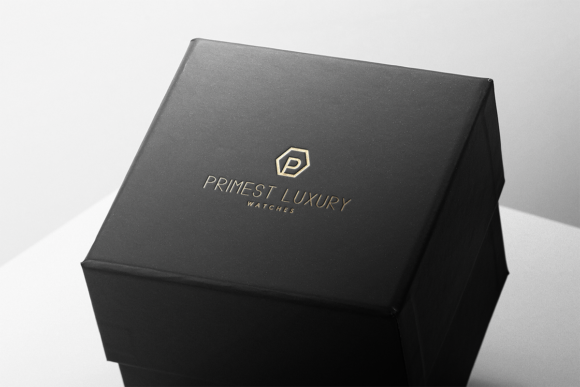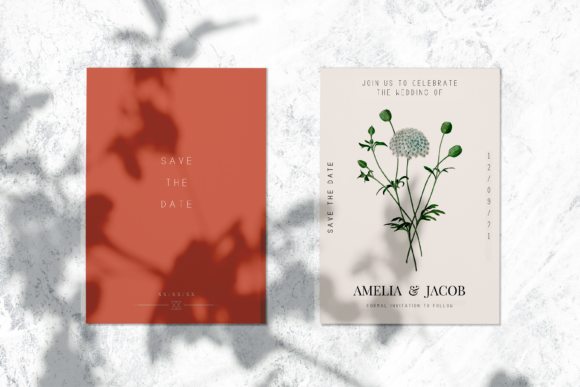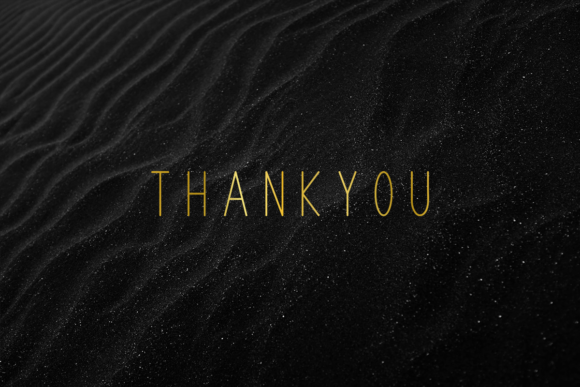
Introduction to Primest Font
Primest is a very simple sans serif font featuring minimalistic characters that are well-spaced and extremely easy to read.
Use it in your most creative ideas and notice how it makes them stand out .
Key Features of Primest Font
Why Choose Primest Font?
Primest Font offers exceptional quality and versatility, making it a valuable addition to your design toolkit. Whether you’re creating for personal projects or commercial use, Primest Font delivers professional results.